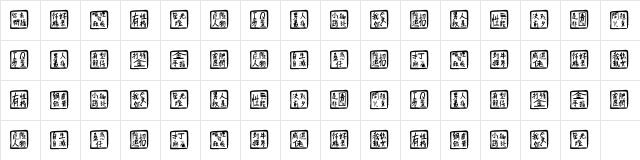
ChineseWhisper Regular
Design Context for ChineseWhisper
ChineseWhisper is a composed and adaptable typeface that performs quietly and consistently across a wide range of design contexts.
Pro Tip: Use ChineseWhisper in both headline and body roles to test its range before committing to a single application.